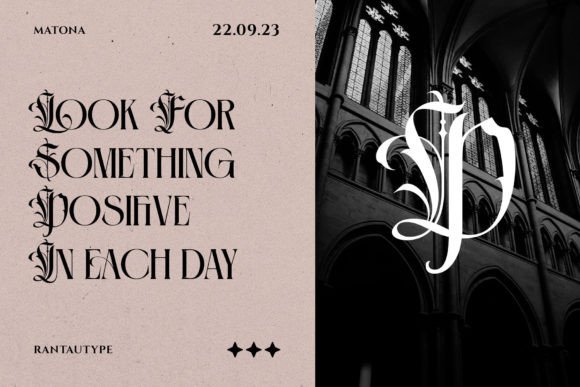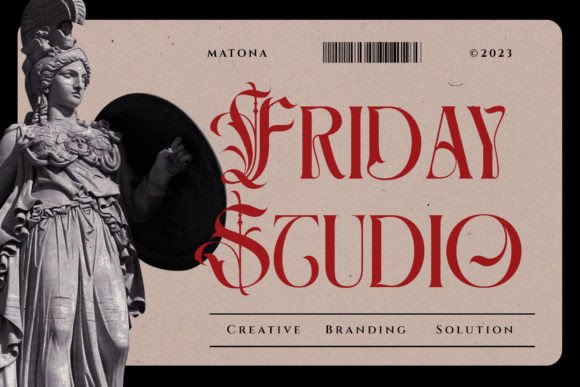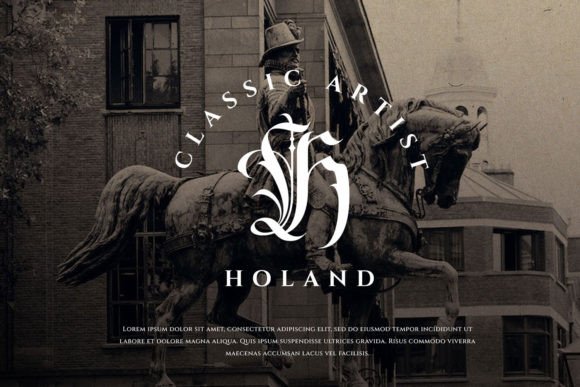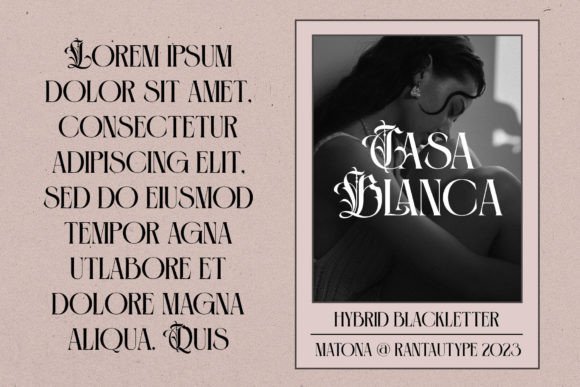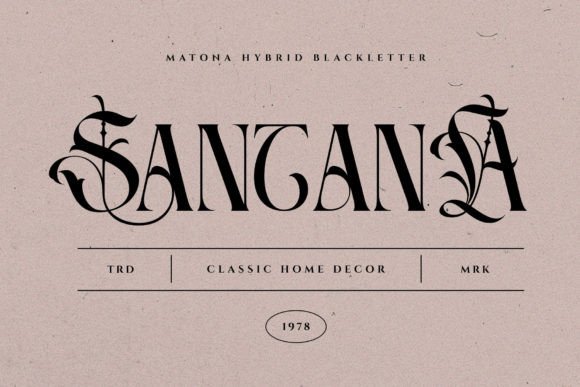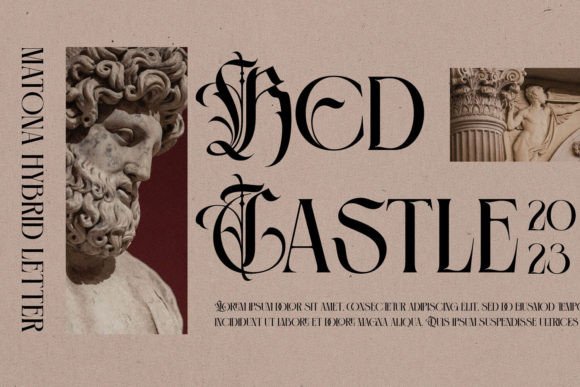
Introduction to Matona Font
Matona is a bold and hybrid blackletter font.
Its delicate curves and refined details create a sense of sophistication and elegance Matona brings a touch of charm and sophistication to branding, editorial designs, and more.
Key Features of Matona Font
Why Choose Matona Font?